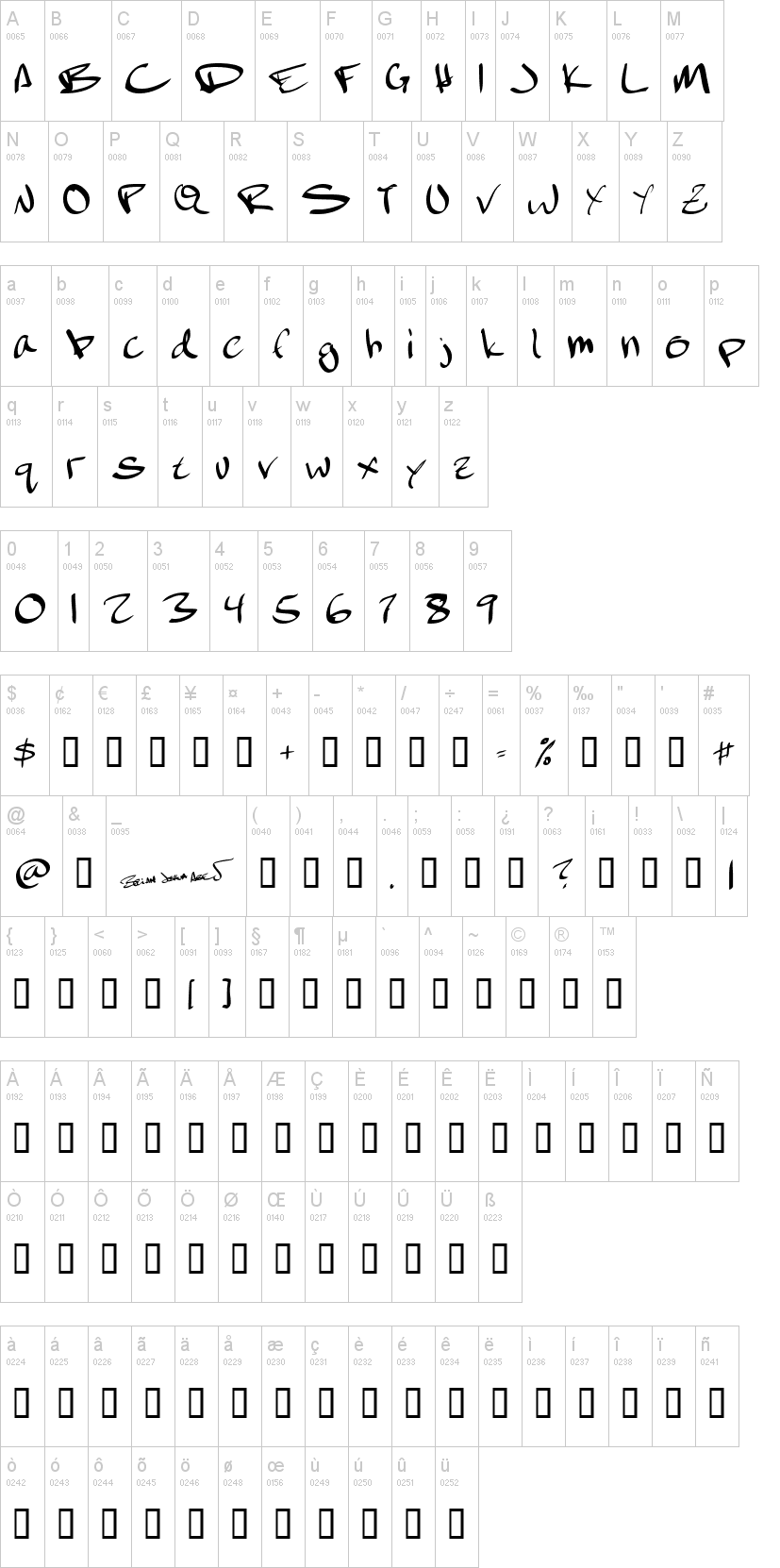
Note of the authorthis is my own handwriting converted to a font.
don't be too hard on it, the kerning is a little off.. i know. i had to make it readable.